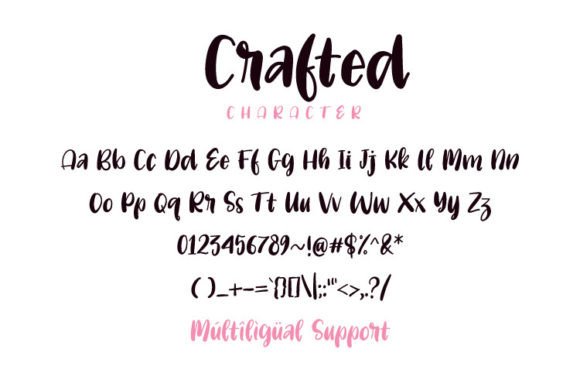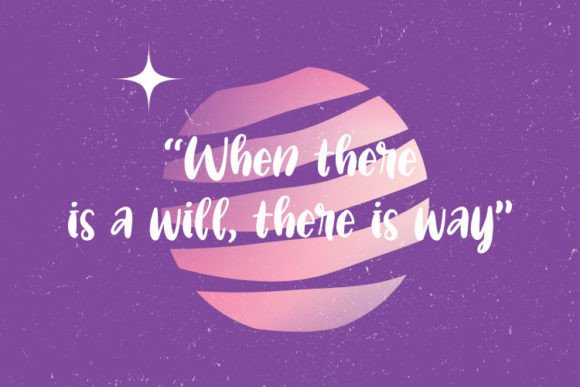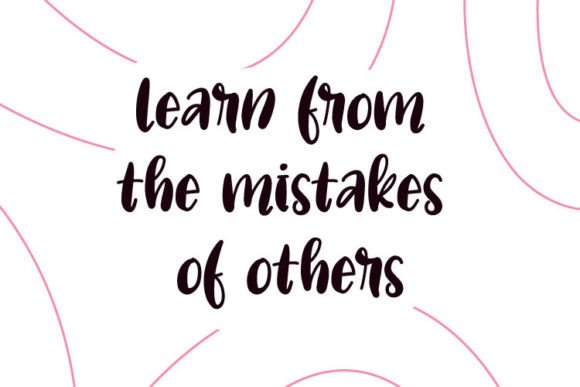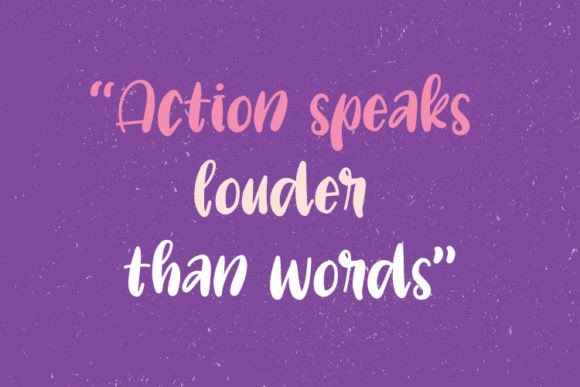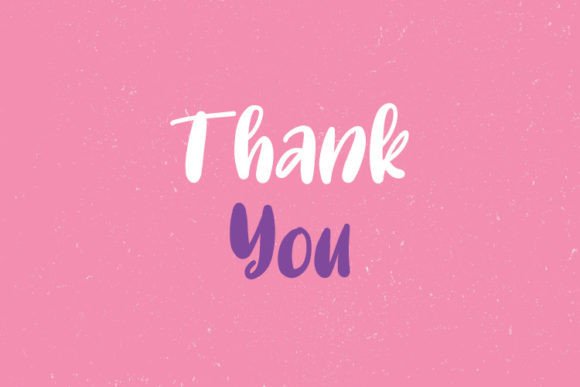
Crafted Font: The Ultimate Brush Font for Your Creative Designs
Are you a designer or crafter looking for a font that can add a personal touch to your designs? Look no further than Crafted Font, a clean, cute, and adaptable brush font that’s perfect for a variety of creative projects. In this article, we’ll dive into the features and benefits of Crafted Font, and explore how it can elevate your designs to the next level.
What is Crafted Font?
Crafted Font is a beautifully designed brush font that’s inspired by the imperfections of handwriting. With its authentic vibe, this font is perfect for designers and crafters who want to add a personal and realistic feel to their designs. Whether you’re working on a logo, branding project, or social media graphics, Crafted Font is the perfect choice.
Key Features of Crafted Font
- Clean and Cute Design: Crafted Font features a clean and cute design that’s perfect for a variety of creative projects. Its unique brush strokes and imperfections give it a handcrafted feel that’s sure to capture the attention of your audience.
- Adaptable: Crafted Font is incredibly versatile and can be used for a wide range of designs, from logos and branding to social media graphics and more.
- Authentic Vibe: The font’s authentic vibe gives it a personal and realistic feel that’s perfect for designers and crafters who want to add a human touch to their designs.
- Easily Customizable: Crafted Font is easily customizable, allowing you to adjust the font size, color, and style to fit your design needs.
Benefits of Using Crafted Font
So why choose Crafted Font for your designs? Here are just a few benefits of using this amazing brush font:
- Adds a Personal Touch: Crafted Font’s authentic vibe adds a personal touch to your designs, making them stand out from the crowd.
- Increases Engagement: The font’s unique and handcrafted feel can help increase engagement with your audience, making them more likely to interact with your designs.
- Versatile: Crafted Font can be used for a wide range of designs, making it a great addition to your font library.
- Easy to Use: The font is easy to use and customize, making it perfect for designers and crafters of all skill levels.
Examples of Crafted Font in Action
So what can you create with Crafted Font? Here are a few examples of how this amazing brush font can be used in different designs:
- Logo Design: Use Crafted Font to create a unique and memorable logo that stands out from the crowd.
- Branding: Add a personal touch to your branding materials, such as business cards, brochures, and more.
- Social Media Graphics: Use Crafted Font to create eye-catching social media graphics that grab the attention of your audience.
- Invitations and Stationery: Add a touch of elegance and sophistication to your invitations and stationery with Crafted Font.